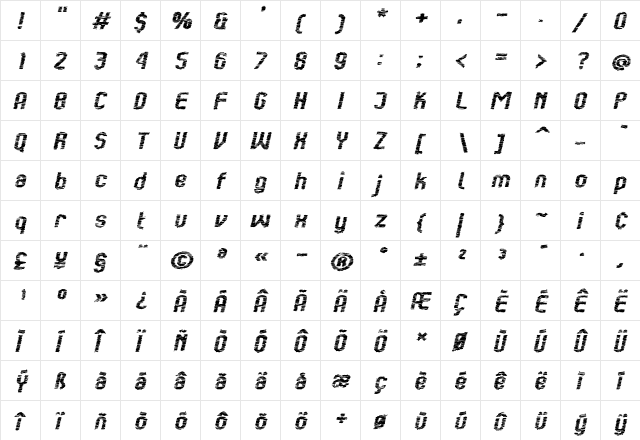
Kumba Scrawl SemiBold Expanded Italic
| Foundry | Audry Kitoko Makelele |
| Designer | Audry Kitoko Makelele |
Design Context for Kumba Typeface
Kumba is a composed and adaptable typeface that performs quietly and consistently across a wide range of design contexts. Its italic angle brings a sense of urgency and motion to the letterforms. The heavy weight commands attention and anchors typographic hierarchies.
Pro Tip: Use Kumba for emphasis, pull quotes, and subheadings where its slanted energy can add rhythm to the layout.